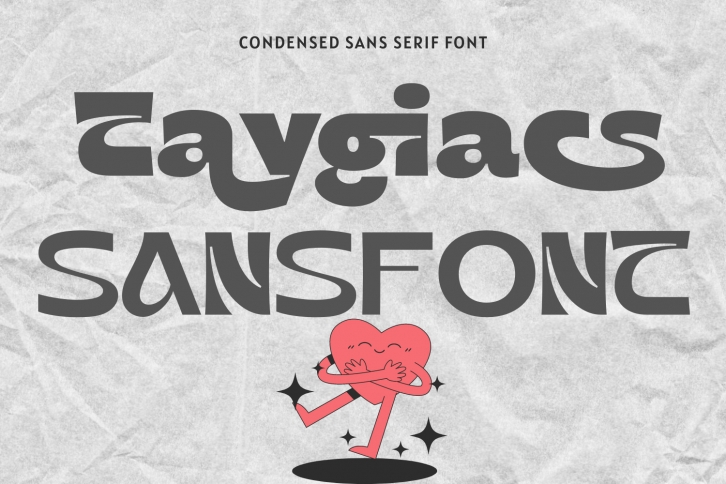
Taygiacs is a fancy, modern, and condensed all-caps sans serif font. With bold tall and sharp strokes, fun characters with a bit of ligature, and alternates to give you extra creative work. Having this font collection and understanding the art and science of typography well will help you to create something truly extraordinary that no one else has ever thought of, such as logo design projects, marketing campaigns, UI design, creative videos, packaging design, and similar projects.